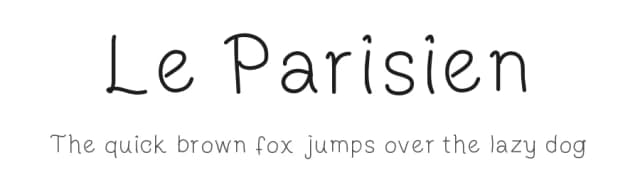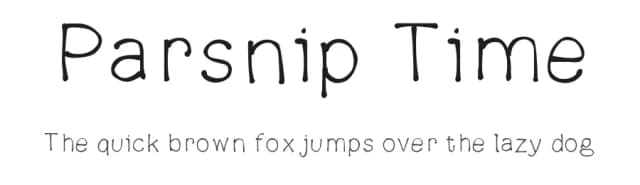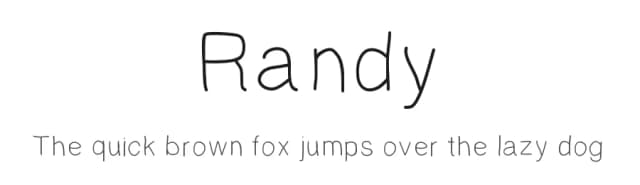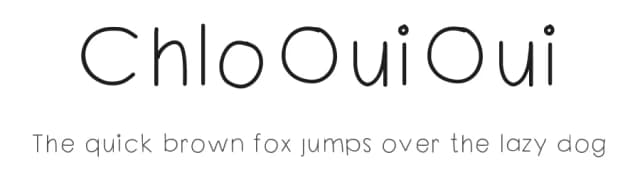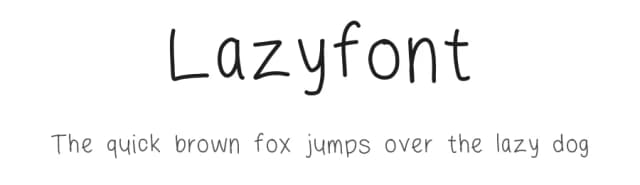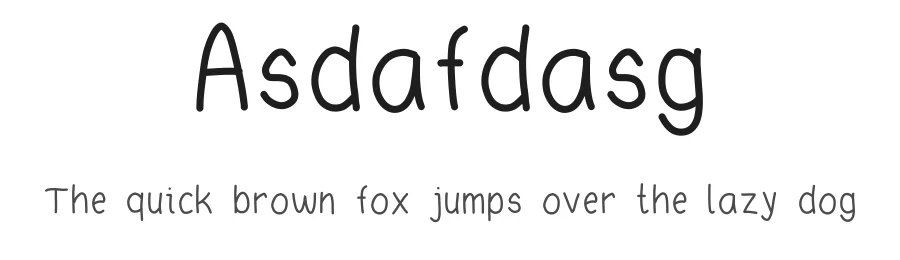
About More Letters Font
More Letters is a script & handwritten font designed by Gaelleing. It includes 178 glyphs, a medium weight, TTF (TrueType) format, and 109 languages. More Letters is free to download; check the license details on this page before commercial use. Script & handwritten fonts like More Letters work best for wedding invitations, greeting cards, signatures, and elegant branding.
More Letters Font is a script font that shines as a display or heading face. Pair it with a clean sans-serif or serif font for body text β the contrast creates a clear hierarchy while the two styles stay balanced and easy to read.
More Letters Font
by Gaelleing
More Letters Font is a script handwritten typeface by Gaelleing, ideal for logos, invitations, branding, and creative projects.